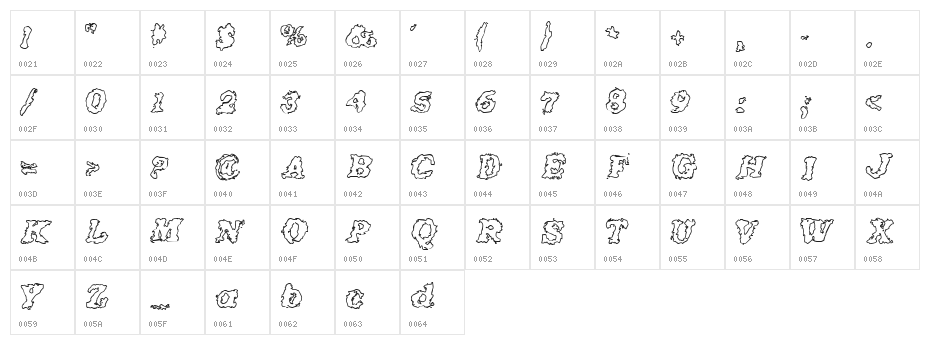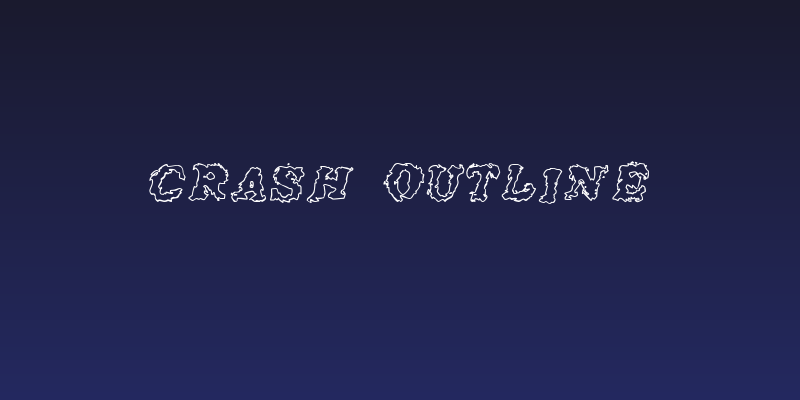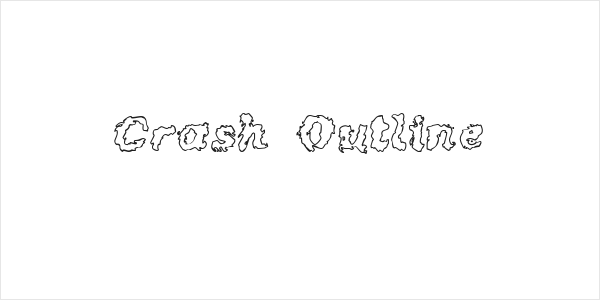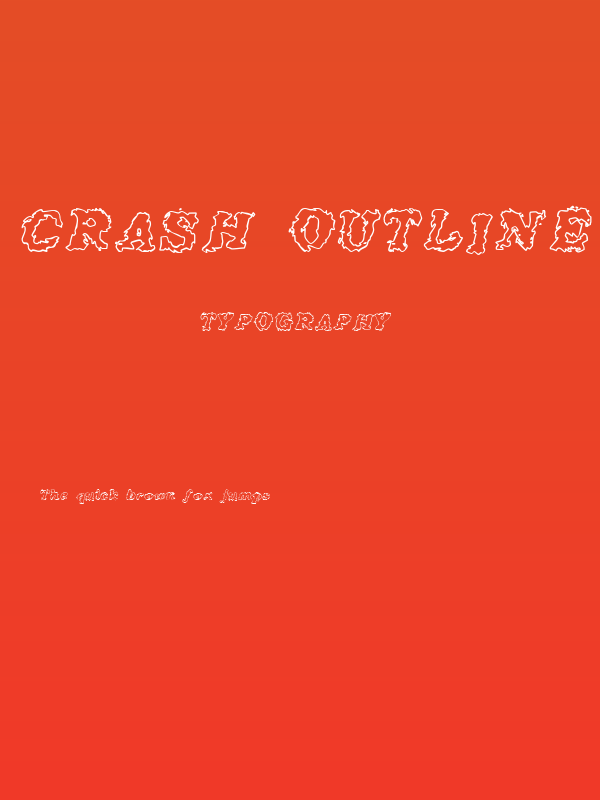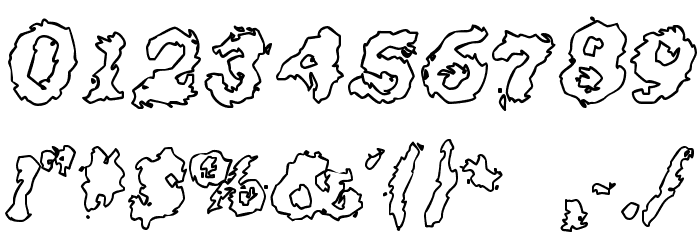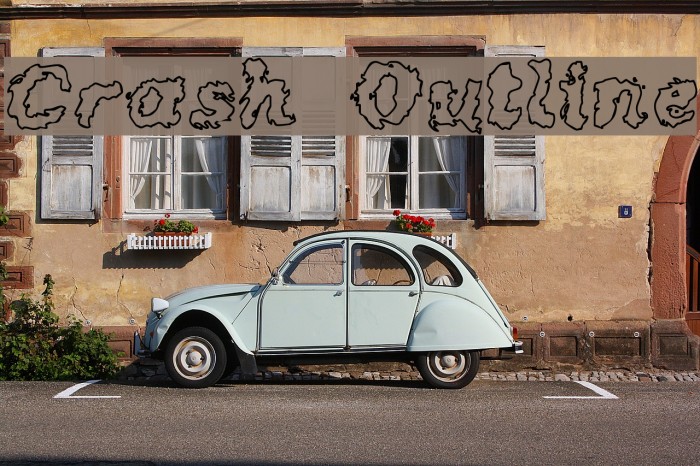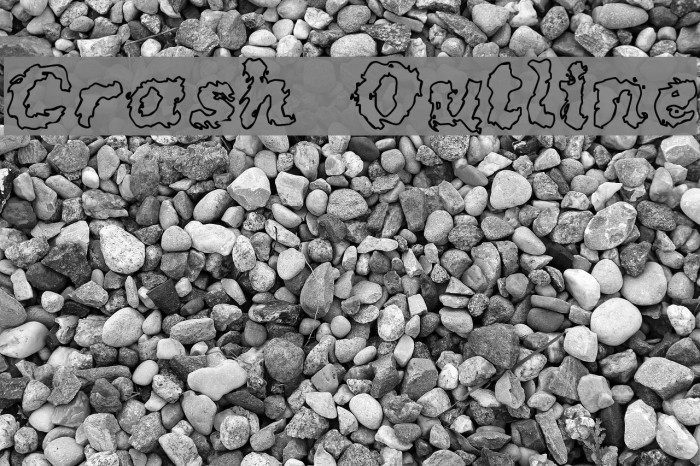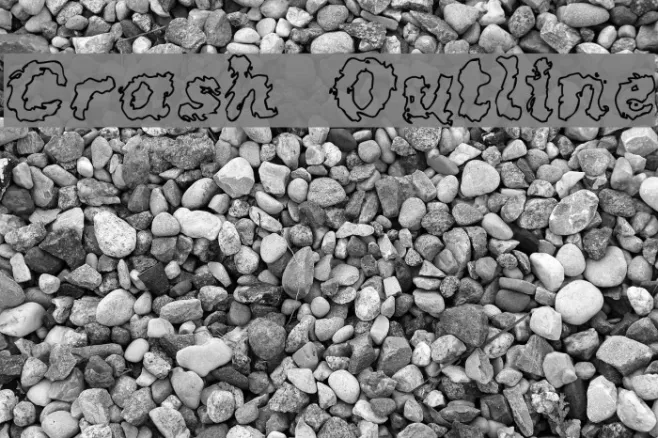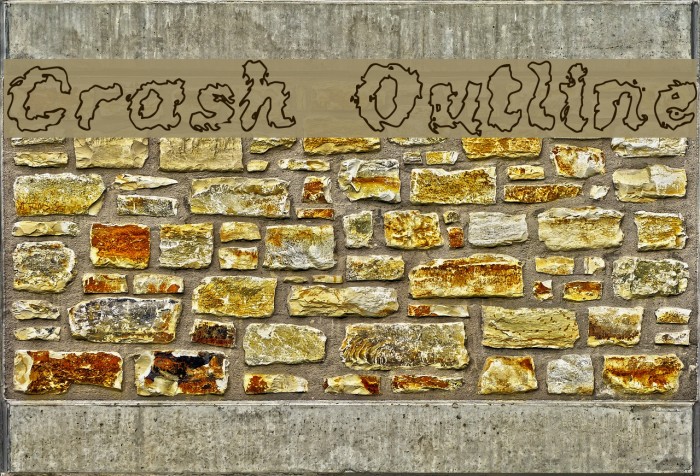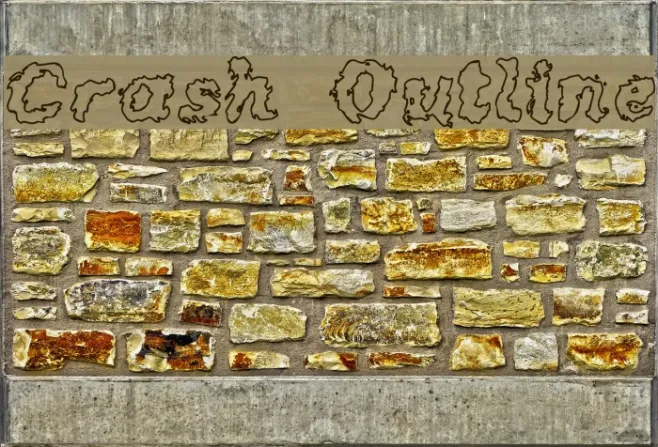
Crash Outline Font
Crash Outline Description
This font features a unique, jagged outline style that gives each character a dynamic and chaotic appearance. The letters are bold and irregular, with a hand-drawn feel that suggests movement and energy. The outlines are thick and uneven, creating a sense of depth and texture. This font is highly decorative and stands out due to its unconventional design, making it ideal for creative and artistic projects. The uppercase and lowercase letters maintain a consistent style, while the numbers and special characters complement the overall aesthetic. The font's playful and edgy look makes it suitable for projects that require a bold statement.
| Proposed Projects | Ideal for posters, album covers, graffiti art, and any project needing a bold, artistic touch. |